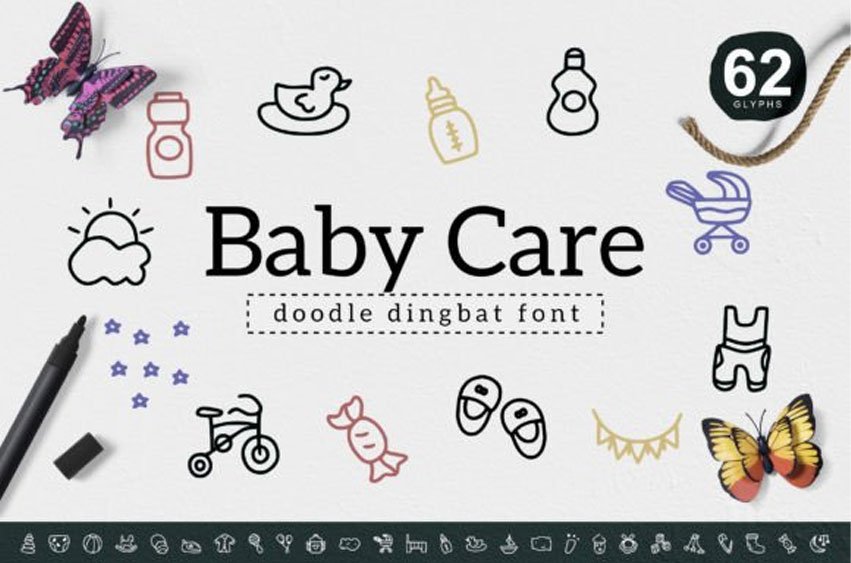
Baby Care Fonis a cute and useful dingbats font perfect for a wide variety of projects.
Use it for stickers, posters, t-shirts, cards, apparel graphics, etc., and you will love the results!